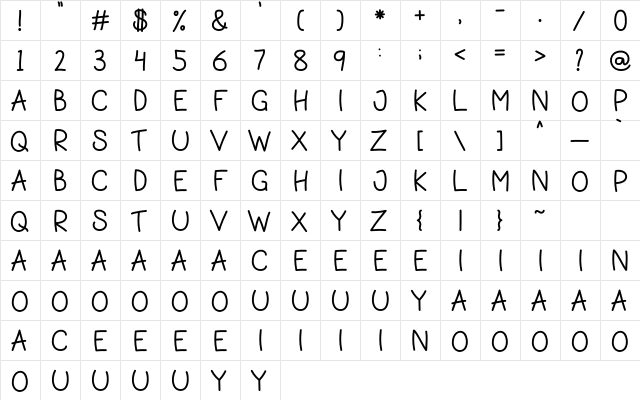
Manchester Regular
| Designer | Andri Firmansyah |
Design Context for Manchester Typeface
Manchester takes a measured approach to typography — its balanced proportions and neutral character make it a reliable workhorse for both digital and print work.